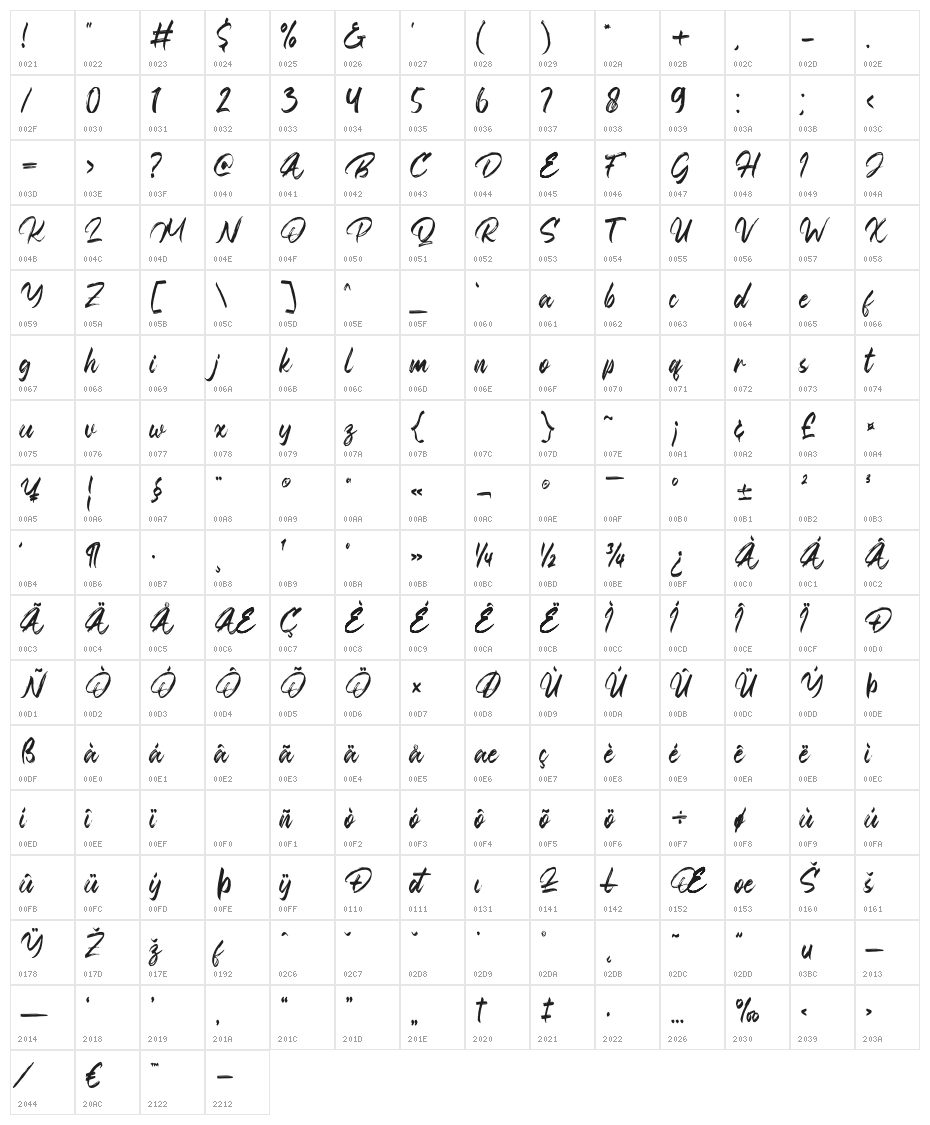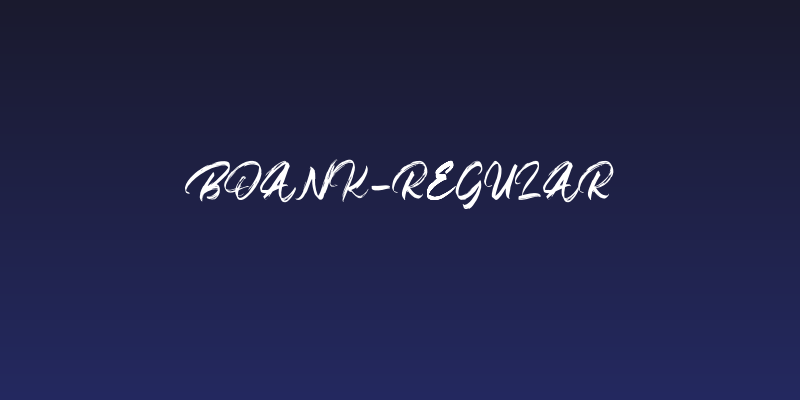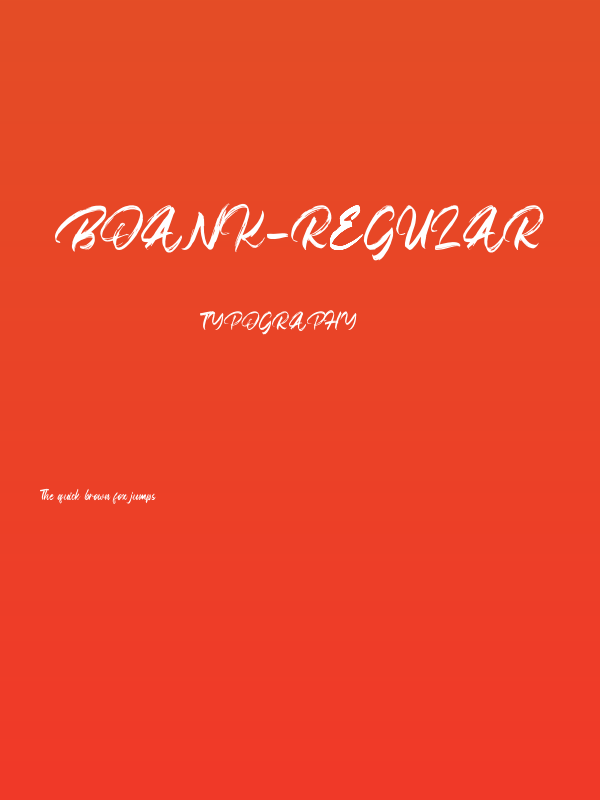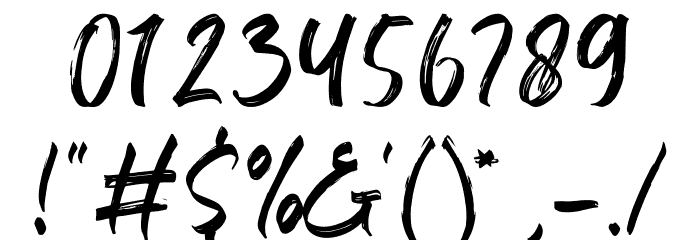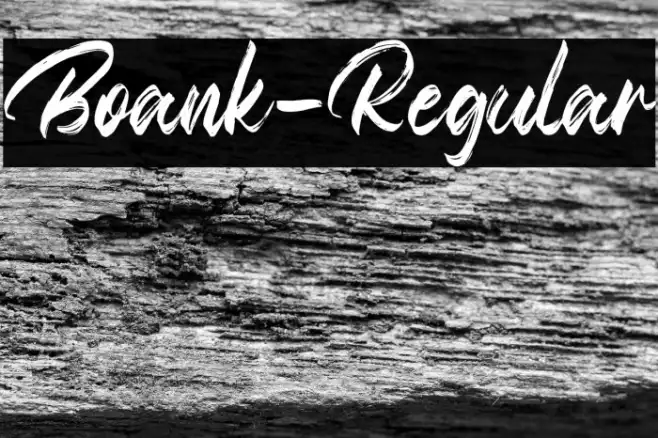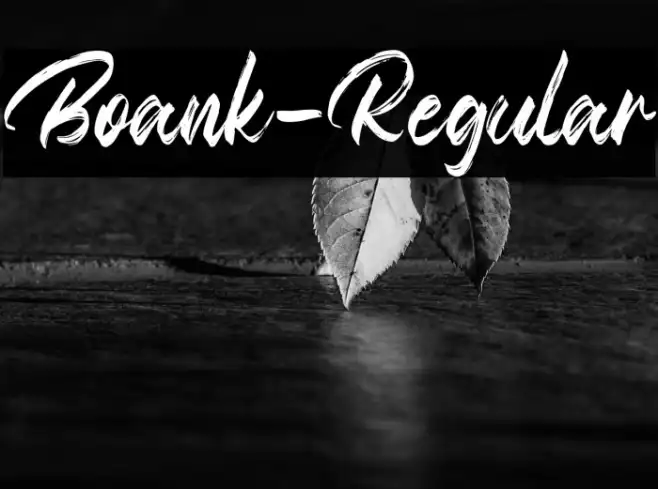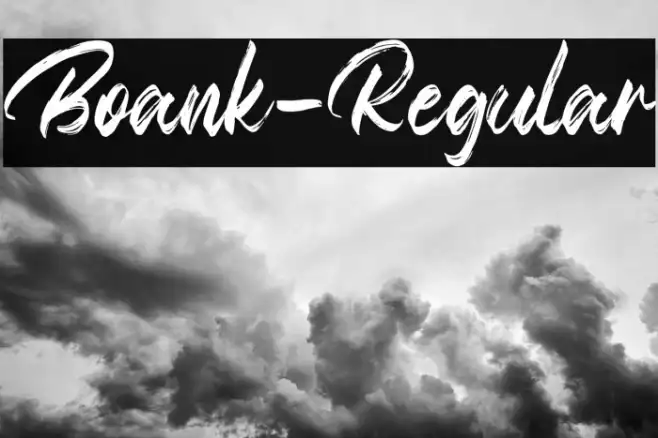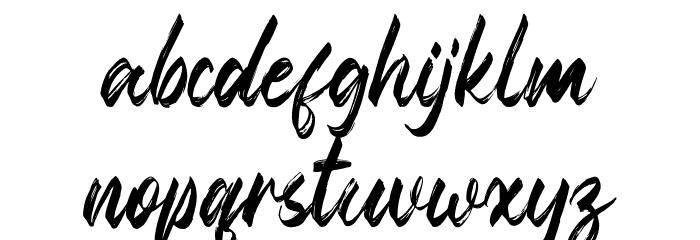
Boank-Regular Font
Boank-Regular Description
This font features a dynamic and expressive script style, characterized by its bold, sweeping strokes and fluid connections between letters. The uppercase letters exhibit a sense of movement and flair, while the lowercase letters maintain a consistent rhythm and flow. The numerals are bold and slightly slanted, complementing the overall energetic feel of the font. Special characters are crafted with the same attention to detail, adding to the font's versatility. The brush-like texture gives it a hand-drawn appearance, making it suitable for creative and artistic projects.